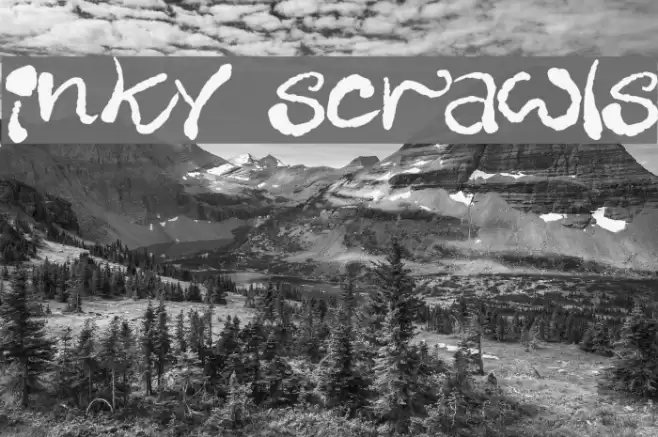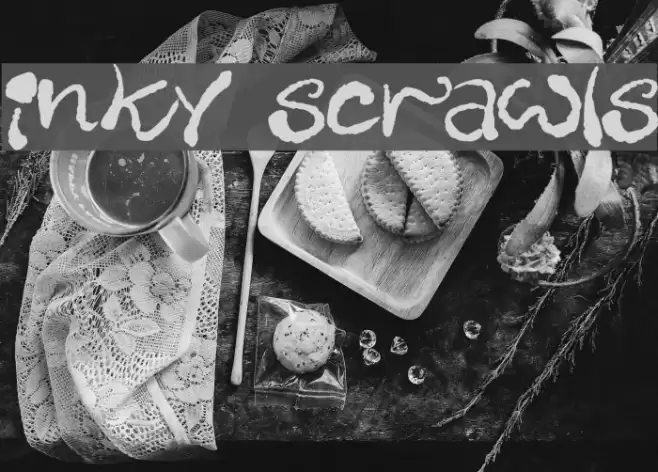
Inky Scrawls Font
Inky Scrawls Description
This font exudes a playful and artistic flair, reminiscent of hand-drawn ink strokes. Each character is uniquely crafted with an organic, flowing style that mimics the unpredictable nature of ink on paper. The letters have a bold presence with varying stroke thickness, creating a dynamic and lively appearance. The font's irregular shapes and whimsical curves give it a distinctive personality, making it ideal for creative and informal projects. The inclusion of special characters and numbers maintains the same artistic style, ensuring consistency across all text elements.
A playful, hand-drawn ink-style font with bold, dynamic strokes from Uncategorized fonts.
- Proposed Projects: Ideal for artistic projects, children's books, creative branding, and informal invitations.
- Use Case: Logos, Headlines, Creative projects